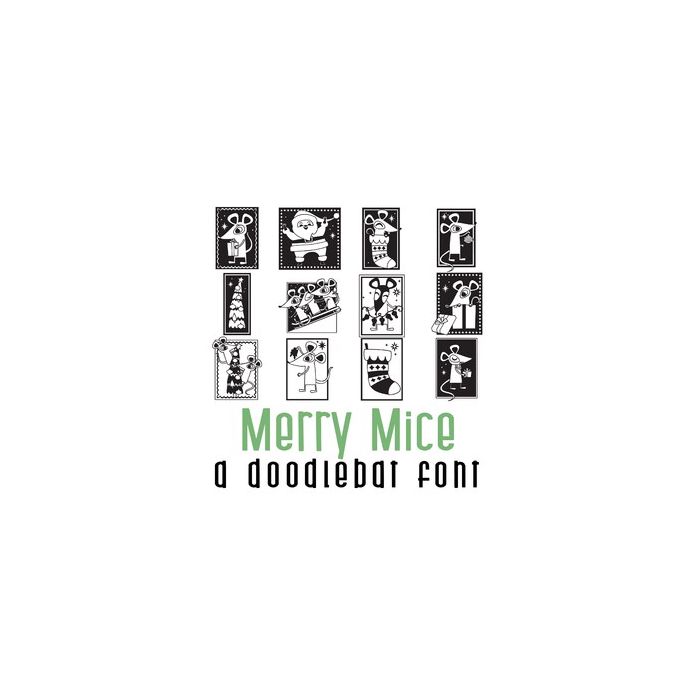
This fun doodle style doodlebat font features 26 merry Holiday mice. Perfect for cards, crafts, gifts, decor, scrap book pages, planner stickers and more!